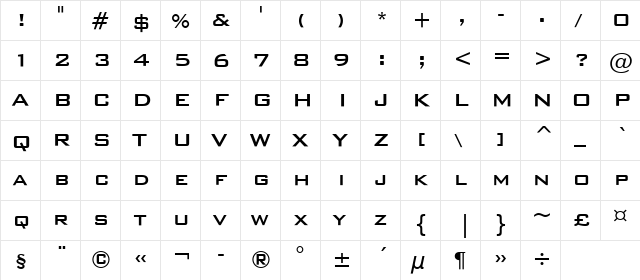
BankGothicCMdBT Medium Regular Font Preview
BankGothicCMdBT Medium Regular
BankGothicCMdBT Medium Regular Font Details
Design Context for BankGothicCMdBT Medium Typeface
BankGothicCMdBT Medium takes a clean, functional approach — its unadorned letterforms prioritise legibility and work reliably across screen and print environments.
Font Pairing: Works well alongside a characterful serif or display font that can carry the expressive load while BankGothicCMdBT Medium handles the functional copy.
Pro Tip: Pair BankGothicCMdBT Medium with a display or serif font for headlines — its neutral character makes it an excellent supporting player in complex typographic systems.